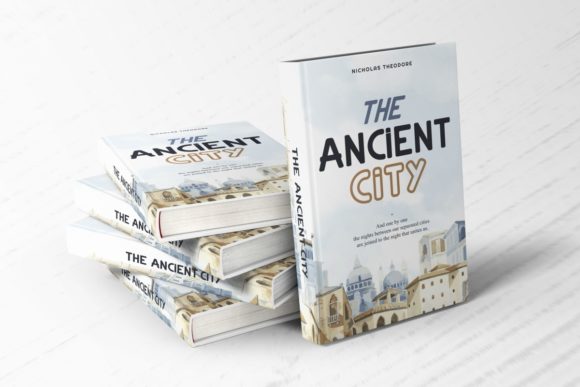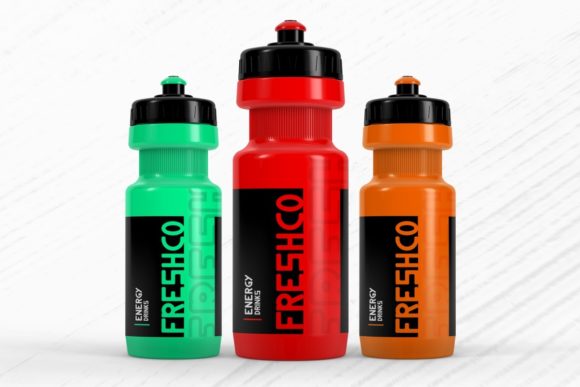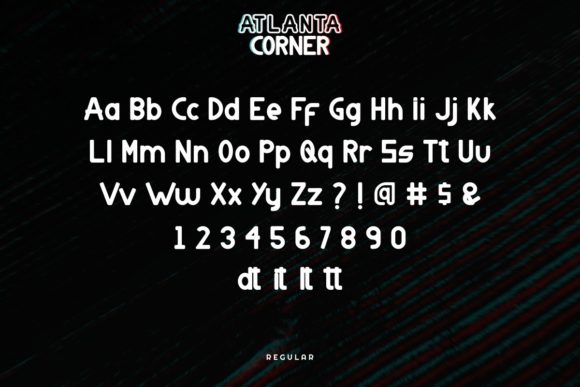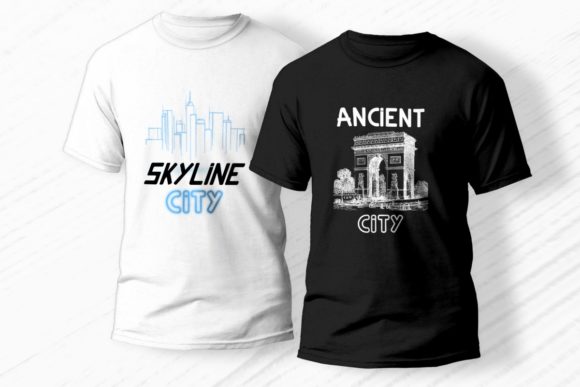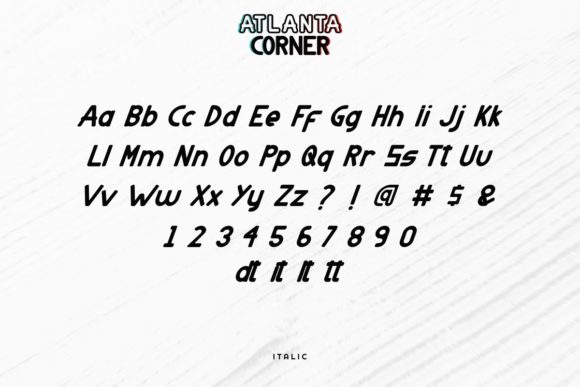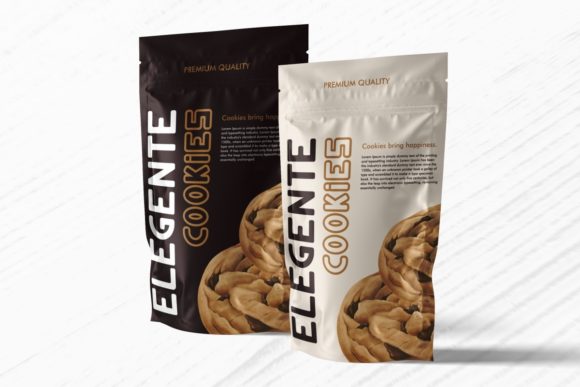
Introducing Atlanta Corner Font: The Modern Sans Serif for Your Designs
In the world of typography, fonts play a crucial role in conveying the message and aesthetic of a brand. For designers and crafters, finding the perfect font that embodies modernity and sophistication can be a daunting task. However, look no further than Atlanta Corner Font, a cutting-edge sans serif font that is sure to elevate your designs to the next level.
What is Atlanta Corner Font?
Atlanta Corner Font is a modern sans serif font that boasts a unique and contemporary style. Its clean lines, precise curves, and geometric shapes make it an ideal choice for designers seeking a fresh and authentic look. This font is perfect for a wide range of applications, from tech companies and startups to businesses, real estate, technology, health products, and more.
Key Features of Atlanta Corner Font
- Modern and Sophisticated: Atlanta Corner Font features a sleek and modern design that exudes sophistication and elegance.
- Unique Style: The font’s distinctive style sets it apart from other sans serif fonts, making it perfect for designers looking to create a lasting impression.
- Versatile: Atlanta Corner Font is versatile and can be used for a variety of applications, including logos, headings, titles, and more.
- Easily Readable: The font’s clear and precise lines ensure that it remains easily readable, even at smaller sizes.
Who Can Benefit from Atlanta Corner Font?
Atlanta Corner Font is an excellent choice for a wide range of industries and professionals, including:
- Tech Companies: The font’s modern and sleek design makes it perfect for tech companies looking to establish a strong brand identity.
- Startups: Atlanta Corner Font is an excellent choice for startups seeking to create a professional and innovative image.
- Businesses: The font’s versatility and sophistication make it suitable for businesses across various industries.
- Real Estate: Atlanta Corner Font’s clean and modern design makes it an excellent choice for real estate companies looking to establish a strong brand presence.
- Technology: The font’s geometric shapes and precise lines make it perfect for technology-related applications.
- Health Products: Atlanta Corner Font’s modern and sophisticated design makes it suitable for health products and wellness-related applications.
How to Use Atlanta Corner Font?
Using Atlanta Corner Font is easy and straightforward. Here are a few tips to get you started:
- Pair it with Other Fonts: Atlanta Corner Font can be paired with other fonts to create a unique and visually appealing combination.
- Experiment with Sizes: The font’s clear and precise lines ensure that it remains easily readable at various sizes.
- Use it for Headings and Titles: Atlanta Corner Font is perfect for headings and titles, where its modern and sophisticated design can shine.
In conclusion, Atlanta Corner Font is a modern sans serif font that is sure to bring an authentic touch to your designs. Its unique and sophisticated style makes it perfect for a wide range of applications, from tech companies and startups to businesses, real estate, technology, health products, and more. With its versatility, readability, and modern aesthetic, Atlanta Corner Font is an excellent choice for designers and crafters seeking to elevate their designs to the next level.